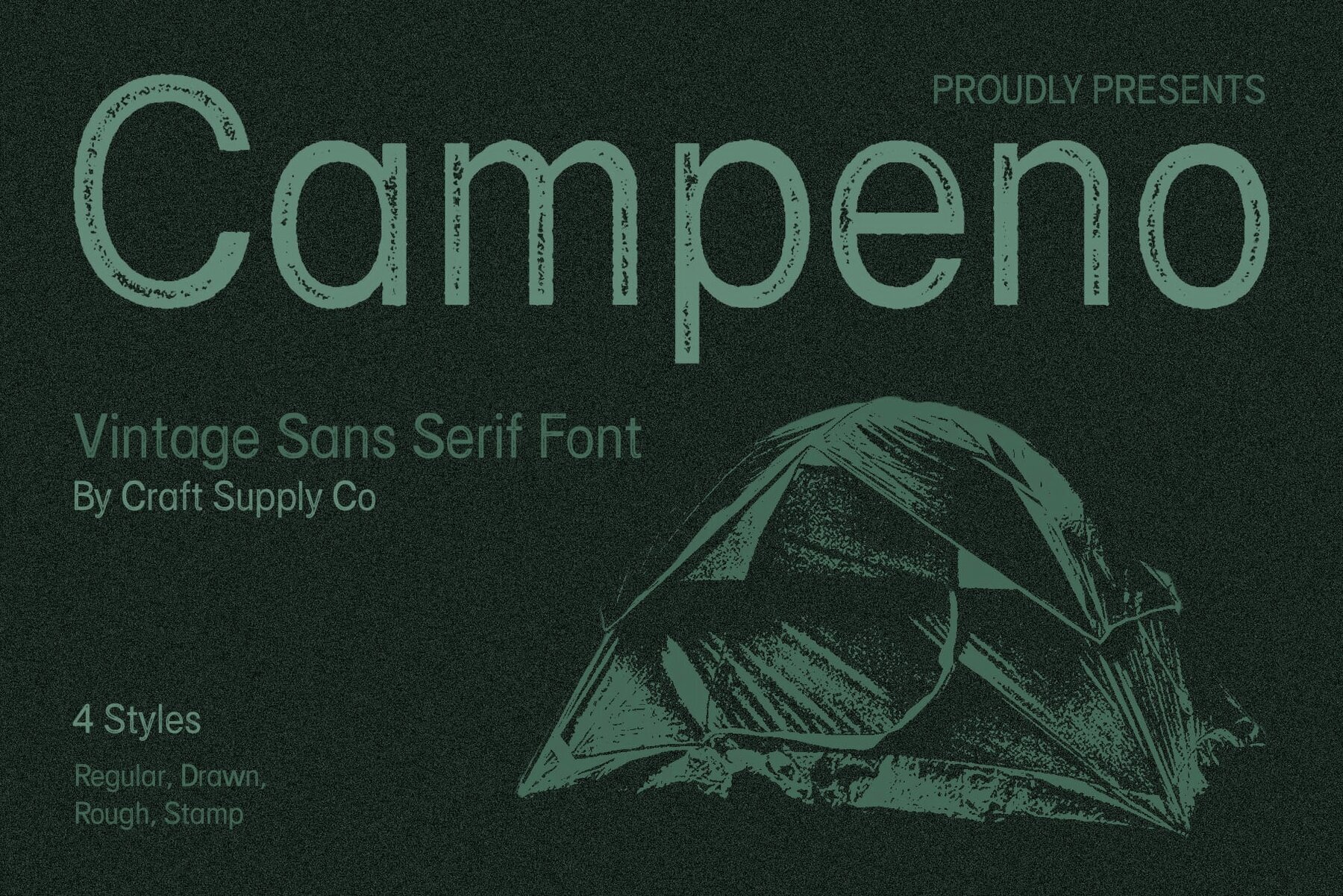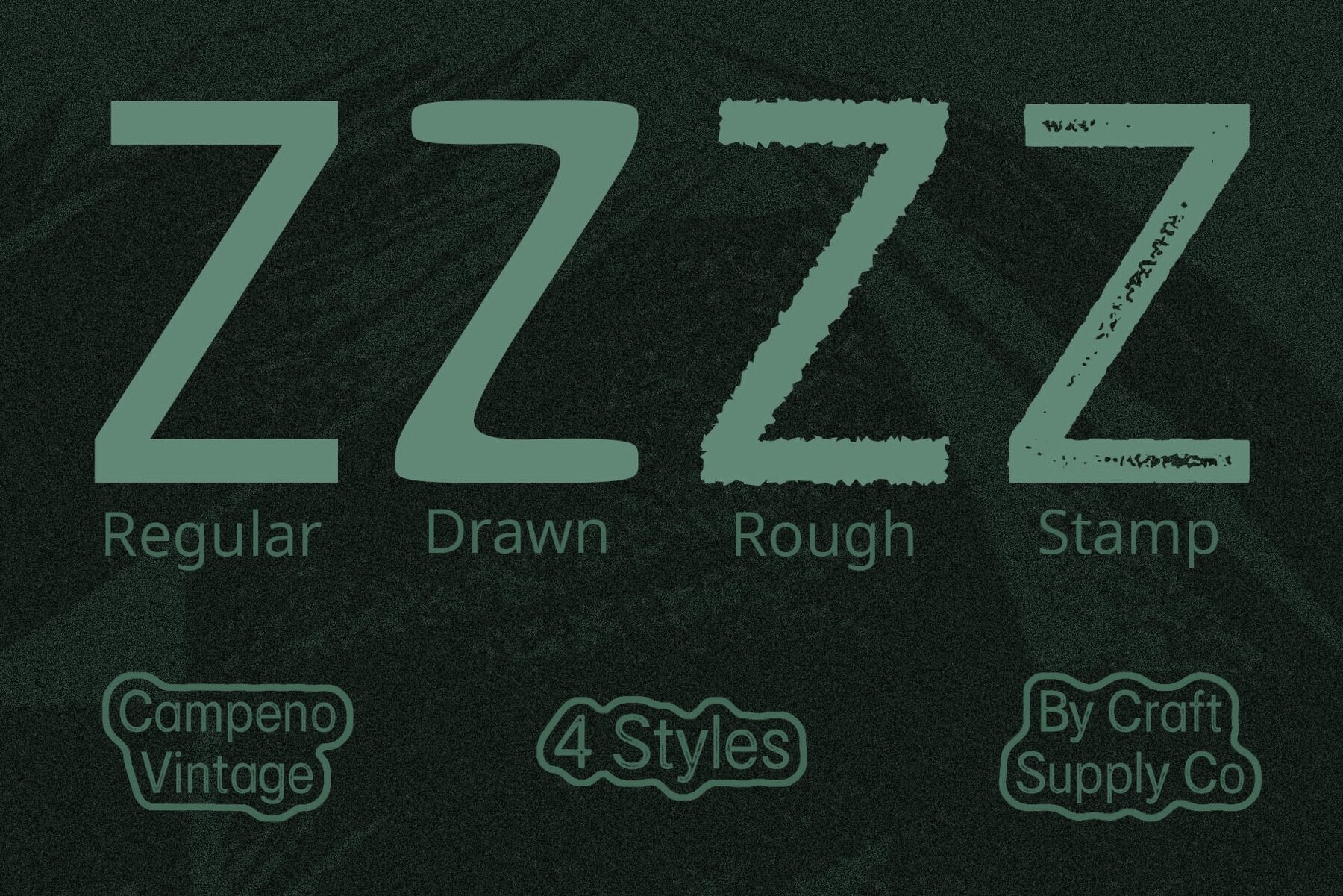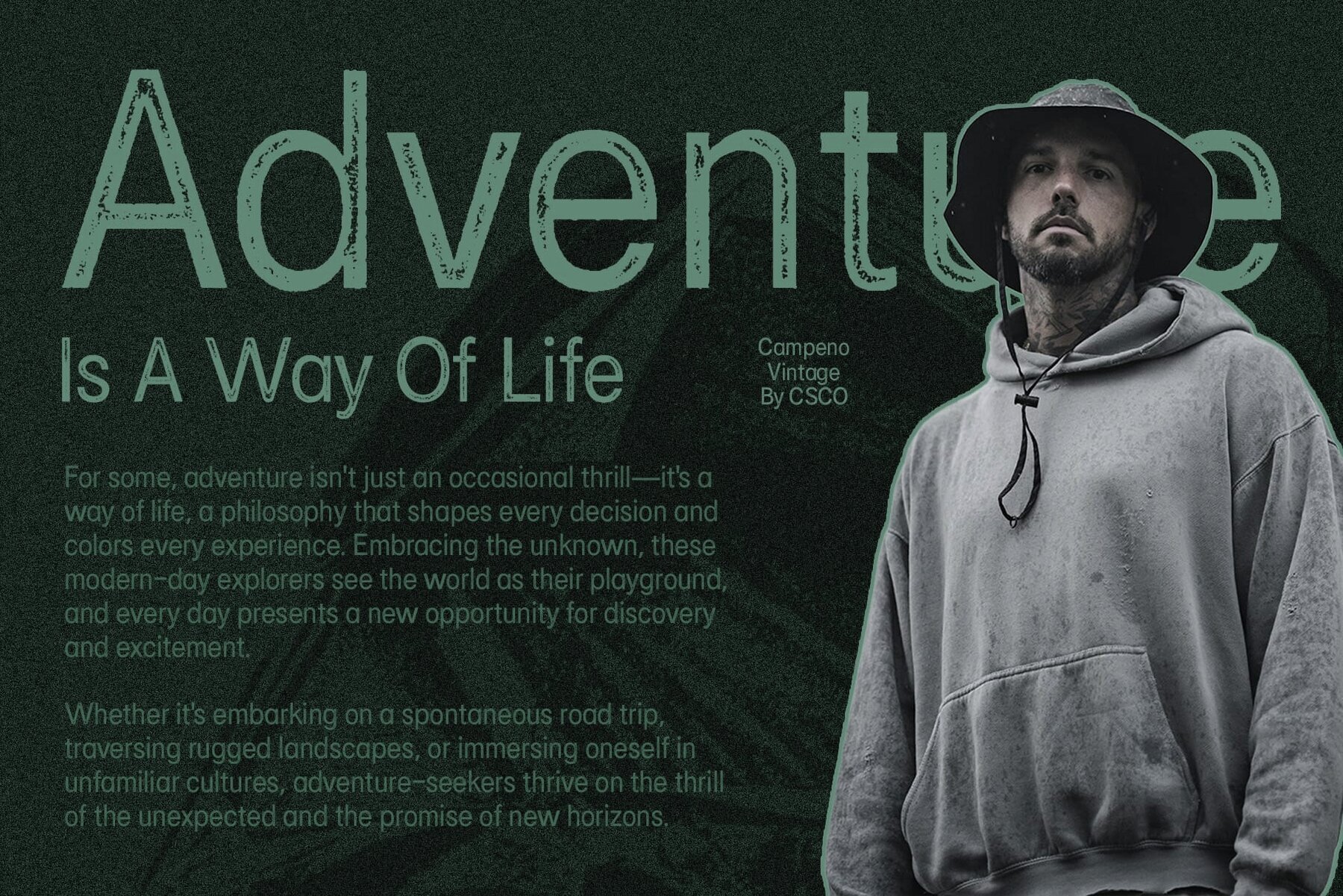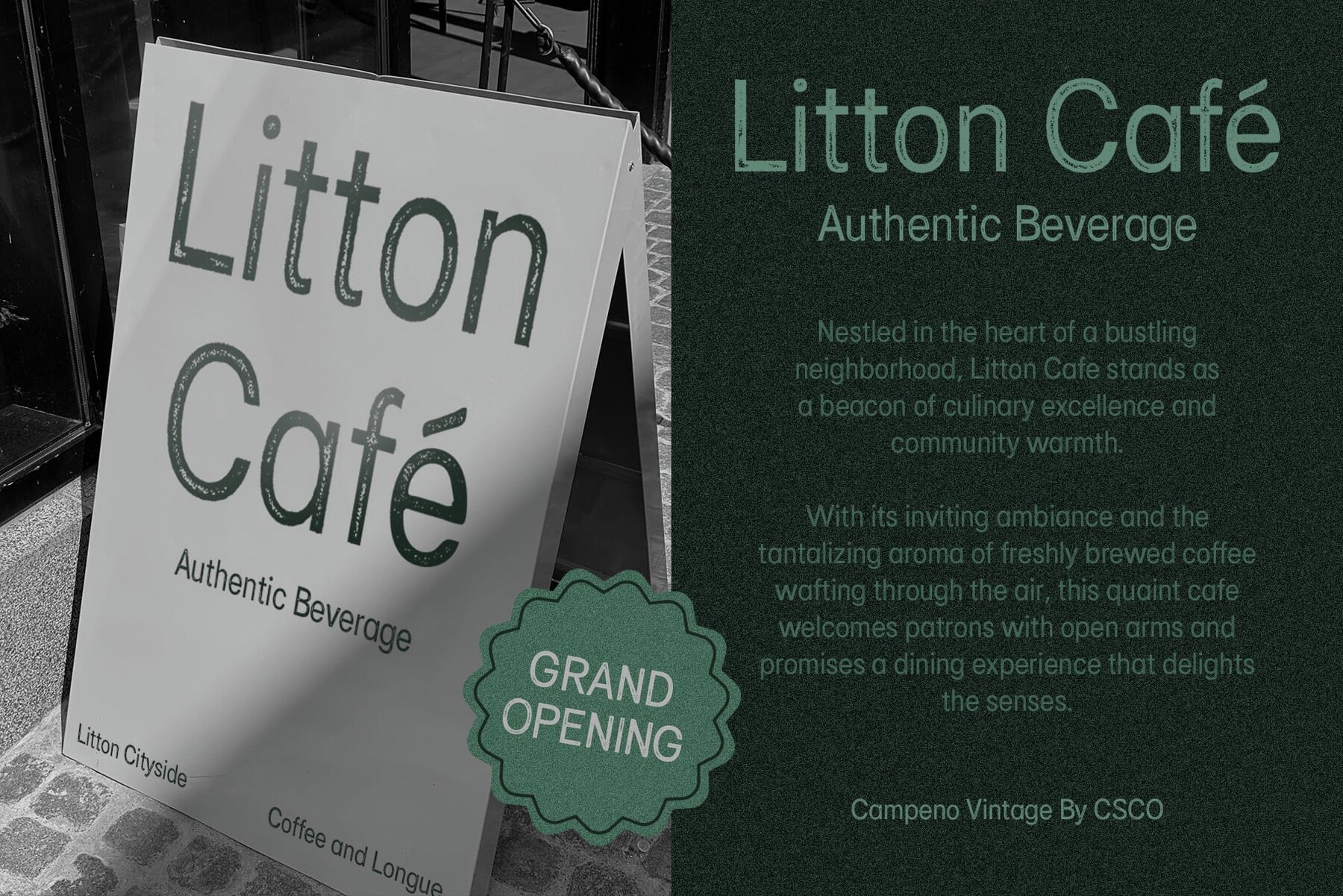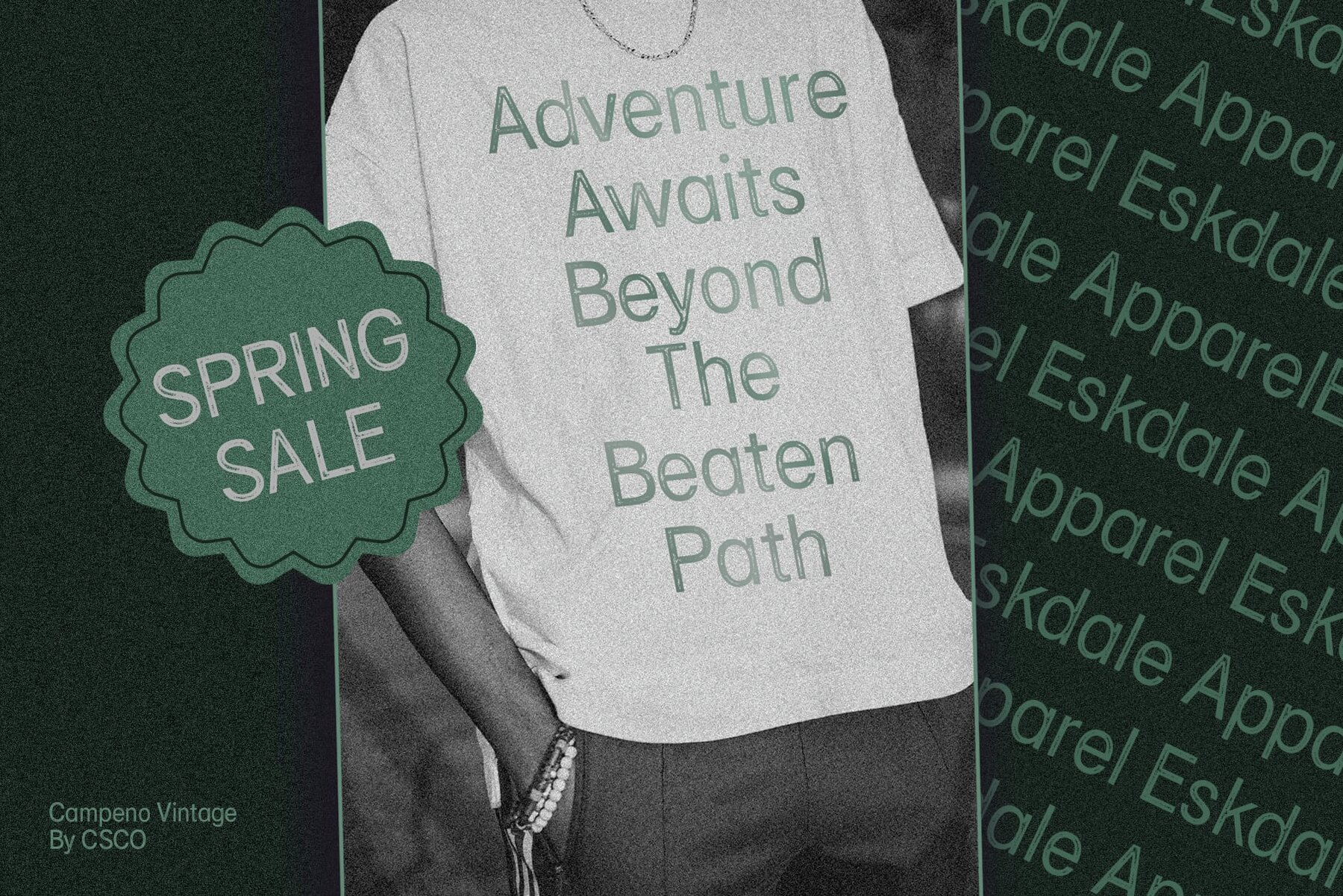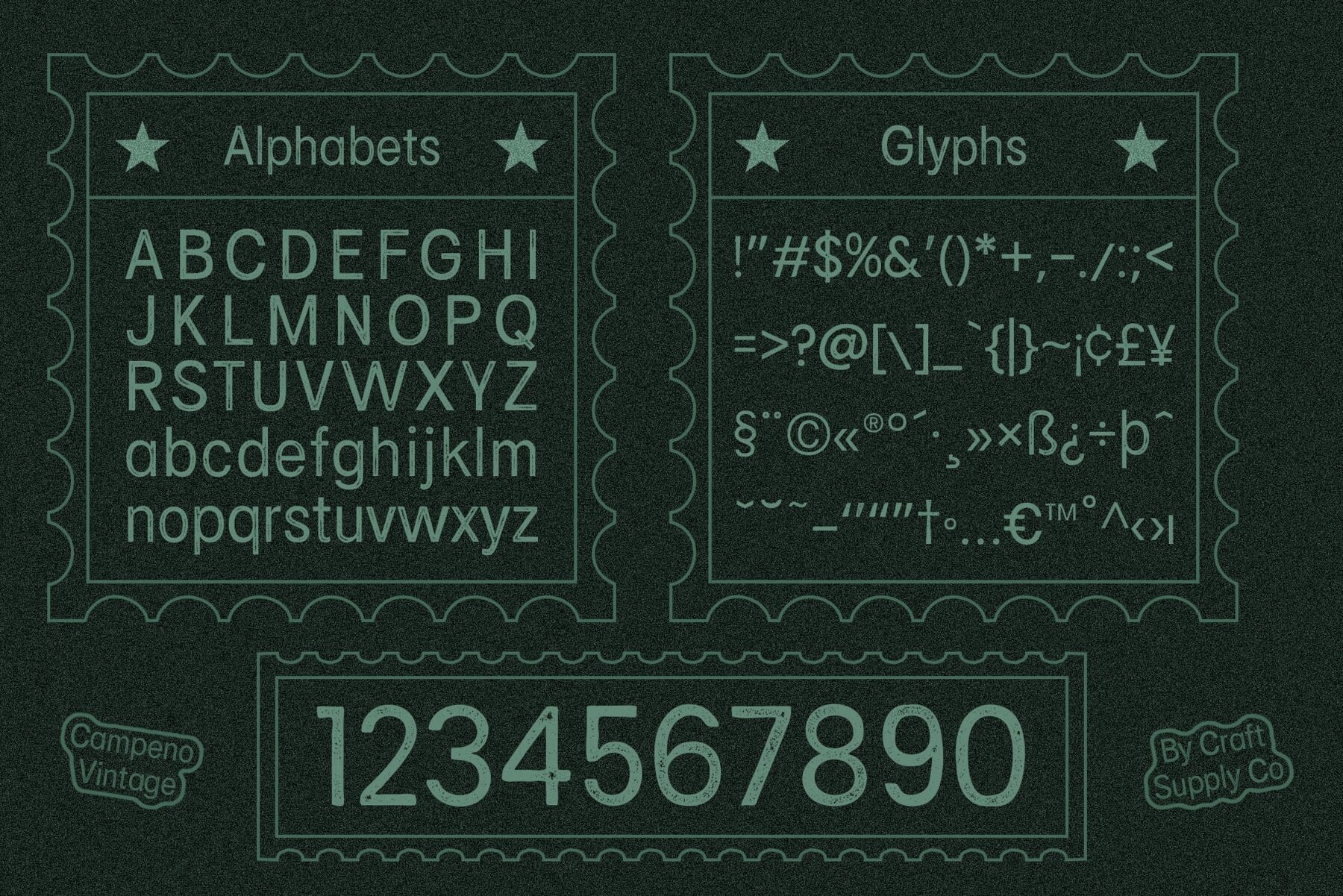
Campeno Vintage Font
This typeface presents a bold, sans-serif, geometric structure that is both highly legible and impactful. It exudes a modern and minimalist vibe that is perfect for display purposes and would be well-suited for tech-oriented or contemporary branding materials. The clean, structured lines make it versatile for use in large headers and signage where clarity and attention-grabbing are key.